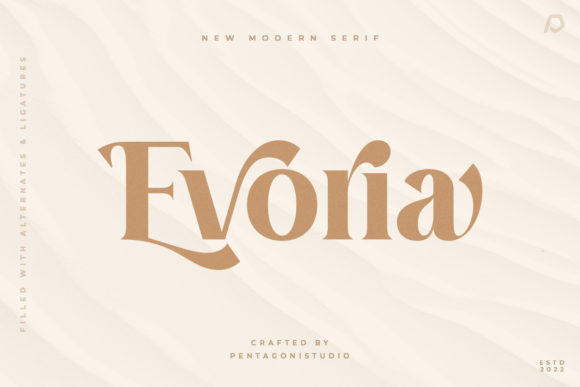
Evoria Font: Elevate Your Design with a Stylish and Bold Serif
Are you searching for a font that can add a touch of elegance and sophistication to your design projects? Look no further than Evoria Font. This stylish and bold serif font is perfect for a wide range of applications, from product packaging and branding projects to magazine covers, social media graphics, and wedding designs. In this article, we’ll explore the features and benefits of Evoria Font, and show you how it can help take your designs to the next level.
What is Evoria Font?
Evoria Font is a modern serif font that exudes style and sophistication. Its bold lines and elegant curves make it perfect for designs that require a touch of luxury and refinement. Whether you’re working on a branding project, creating a magazine cover, or designing social media graphics, Evoria Font is sure to make a statement.
Key Features of Evoria Font
- Stylish and Bold Design: Evoria Font features a bold and stylish design that is sure to grab attention.
- Suitable for Various Applications: From product packaging to wedding designs, Evoria Font is versatile enough to be used in a wide range of applications.
- PUA Encoded: Evoria Font is PUA encoded, which means you can access all of the glyphs and swashes with ease.
The Benefits of Using Evoria Font
So why choose Evoria Font for your design projects? Here are just a few benefits of using this stylish and bold serif font:
Elevate Your Designs
- Add a Touch of Elegance: Evoria Font adds a touch of elegance and sophistication to any design, making it perfect for luxury brands and high-end products.
- Stand Out from the Crowd: With its bold and stylish design, Evoria Font helps your designs stand out from the crowd and grab attention.
- Versatile and Flexible: Evoria Font can be used in a wide range of applications, from print to digital media.
- Easy to Read: Despite its bold design, Evoria Font is easy to read, making it perfect for body text and headlines.
Design Inspiration with Evoria Font
Evoria Font is a versatile font that can be used in a wide range of design applications. Here are a few design inspiration ideas to get you started:
Design Ideas
- Product Packaging: Use Evoria Font to create eye-catching product packaging that stands out on store shelves.
- Branding Projects: Create a strong brand identity with Evoria Font, perfect for luxury brands and high-end products.
- Magazine Covers: Use Evoria Font to create stunning magazine covers that grab attention and draw readers in.
- Social Media Graphics: Create engaging social media graphics with Evoria Font, perfect for Facebook, Instagram, and Twitter.
- Wedding Designs: Use Evoria Font to create beautiful wedding designs, including invitations, programs, and signage.
In conclusion, Evoria Font is a stylish and bold serif font that is perfect for a wide range of design applications. With its elegant design, PUA encoding, and ease of use, Evoria Font is a great choice for designers looking to elevate their designs and add a touch of sophistication. Whether you’re working on a branding project, creating a magazine cover, or designing social media graphics, Evoria Font is sure to make a statement.